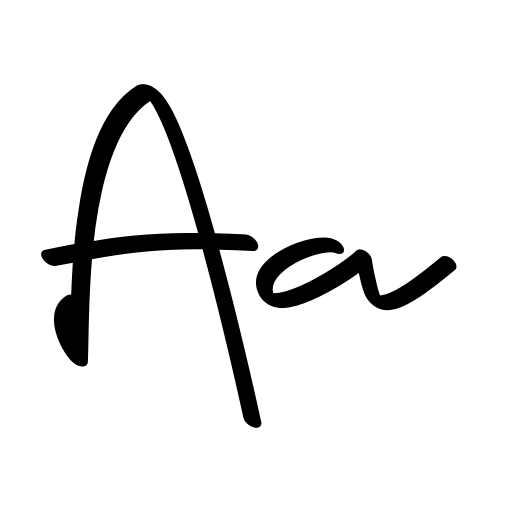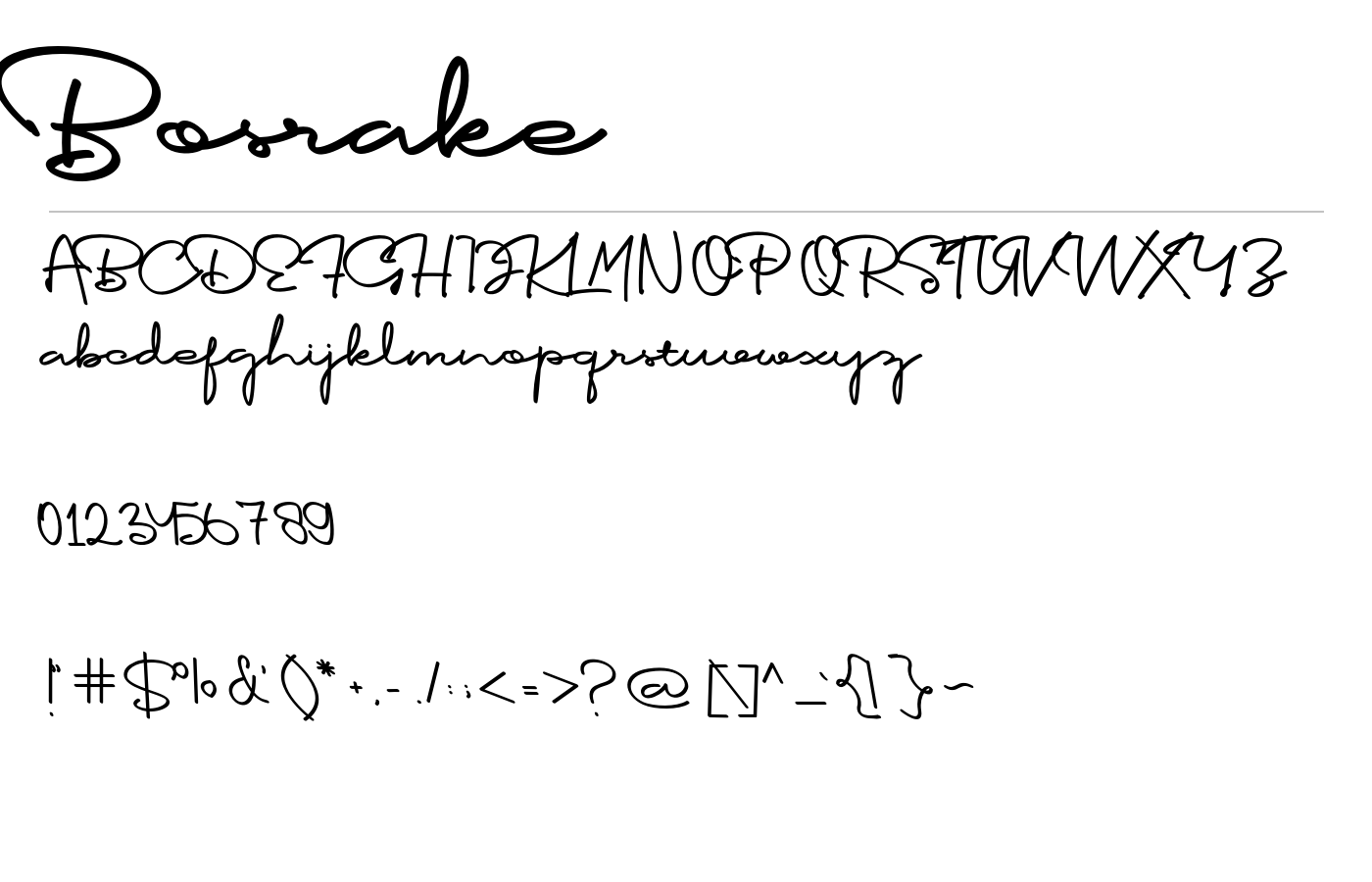
Bosrake is a playful and elegant script font characterized by its flowing, handwritten style with a casual yet distinctive personality. Featuring tall, slender letterforms with varied stroke widths and a lively rhythm, it brings a personal, creative touch ideal for invitations, branding, and expressive headlines. Its unique and charming character shapes make it perfect for projects seeking a friendly, artistic flair without sacrificing readability.
Bosrake Font
About Bosrake Font